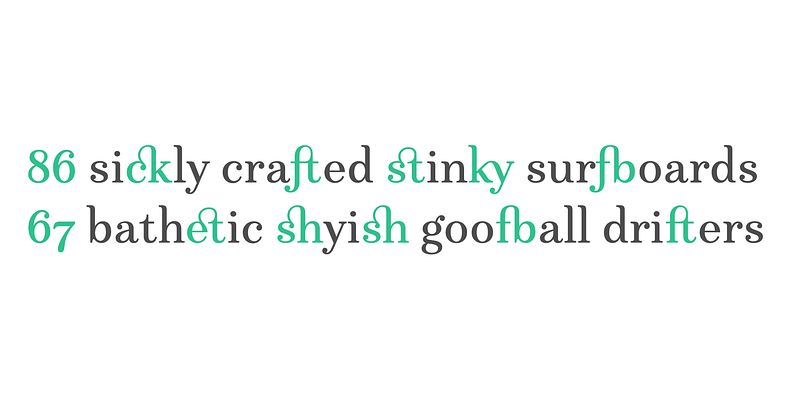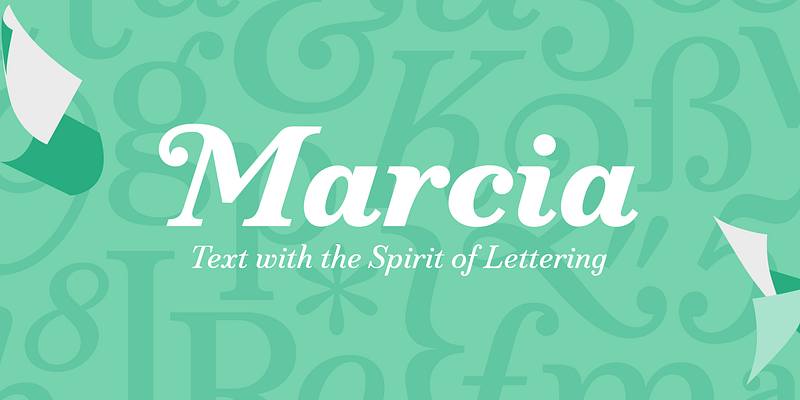
Victoria Rushton started Marcia, her first typeface, with the attitude of a letterer. Its high-contrast roman echoes the Modern styles of the 19th century, while the sturdy italic provides a base for its decorative variations. Both roman and italic, with their unusual ornamental ligatures, are filled with a spirit of lettering, but Marcia remains wholly typographic, ready for use in titling, food packaging, and children’s books; FB 2015